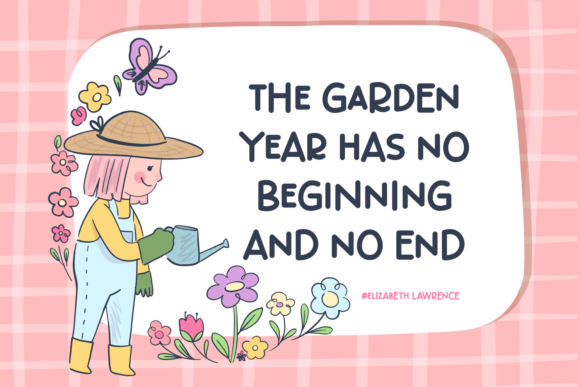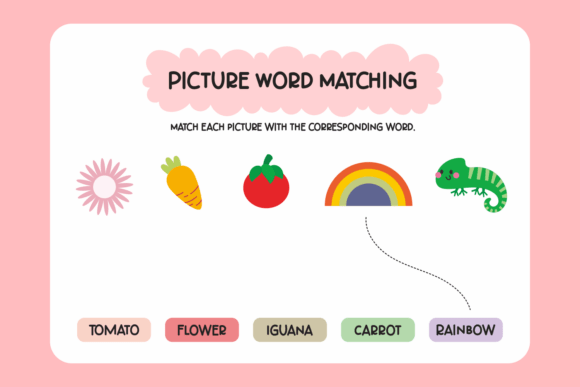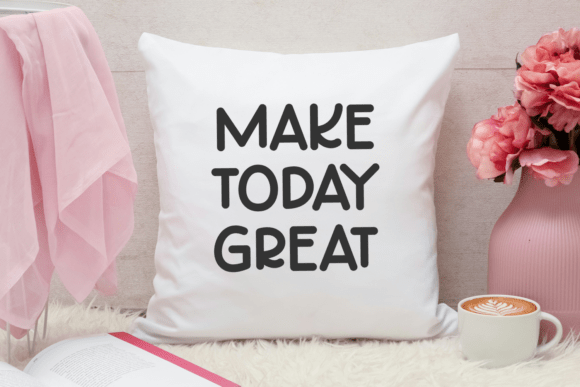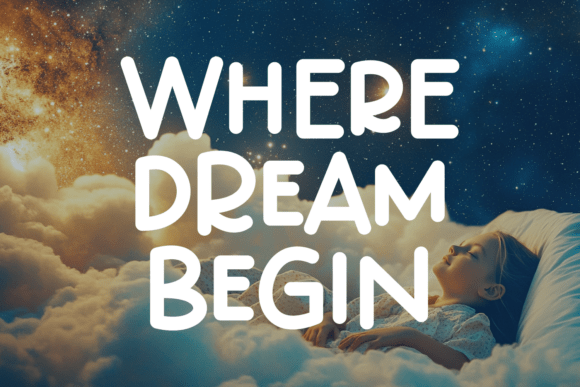
Introduction to Cheerful Alphabet Font
Immerse yourself in the joyous vibe of “Cheerful Alphabet”, a unique intersection of display and hand-drawn font styles.
This playful font dances off the screen with a bubbly, round charm, making it a perfect fit for social media, sublimation designs and school projects Its authentic hand-crafted look injects a dose of warmth and personality into your craft or love-themed designs, and it works stunningly for both print and cursive styles.
Key Features of Cheerful Alphabet Font